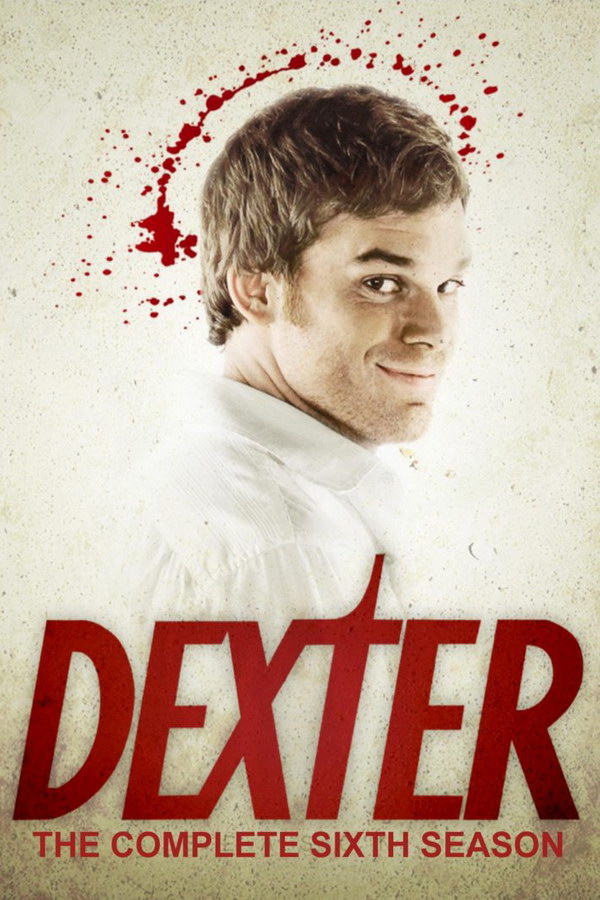
Dexter Font
Fonts in UseDexter is a television series that follows a blood-spatter pattern analyst for the Miami Metro Police Department who secretly leads a double life as a vigilante serial killer, targeting other killers who have escaped justice.
The typography used for the title of the "Dexter" TV series poster is a modified version of the commercial font Soda Script Bold Extra, created by Zuzana Licko in 1995. You can find more details about the font here.